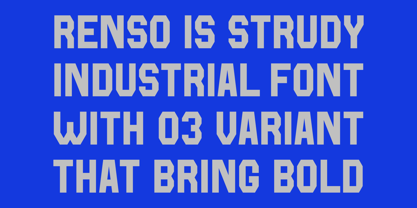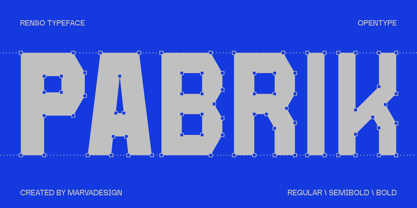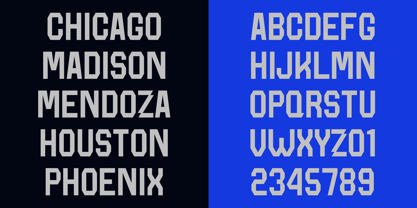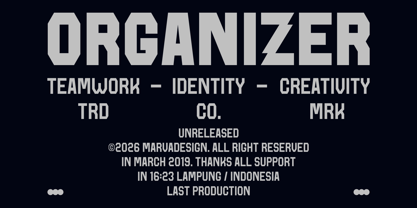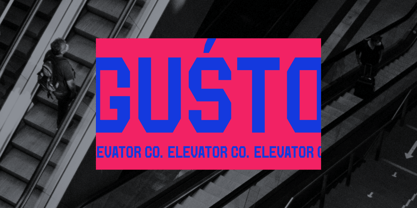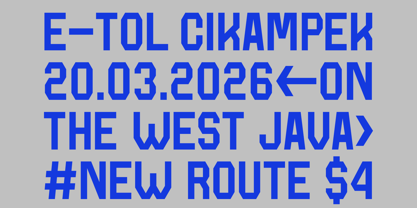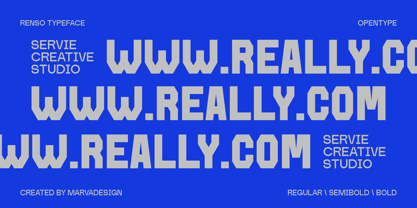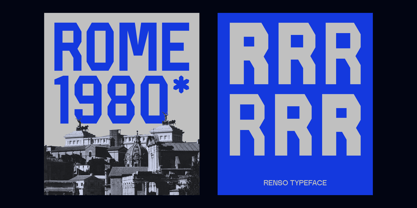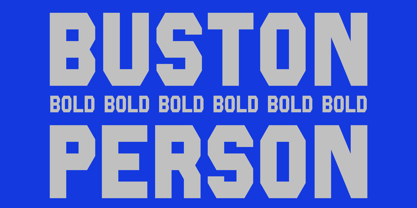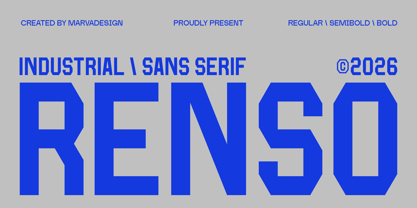
Renso
by Marvadesign
The Renso Font Family was designed by Febrie Setiawan and published by Marvadesign. Renso contains 3 styles and family package options. More about this family
Renso is a bold industrial sans serif typeface designed to deliver strength, clarity, and modern character. Inspired by the solid shapes of urban signage, machinery labels, and architectural lettering, Renso features strong geometric construction with sharp angled cuts that give each letter a powerful and confident appearance. Built with a clean structural rhythm, Renso balances industrial toughness with modern simplicity. The beveled corners and precise edges create a mechanical yet stylish aesthetic, while the consistent stroke weight keeps the typeface visually stable and impactful. The font is designed to perform well in both large display settings and structured typographic compositions. With its bold personality and architectural feel, Renso is perfect for projects that demand a modern industrial tone such as sports branding, urban posters, technology graphics, transportation design, and contemporary editorial headlines. It is a typeface that communicates power, precision, and modern design energy.
Designers: Febrie Setiawan
Foundry: Marvadesign